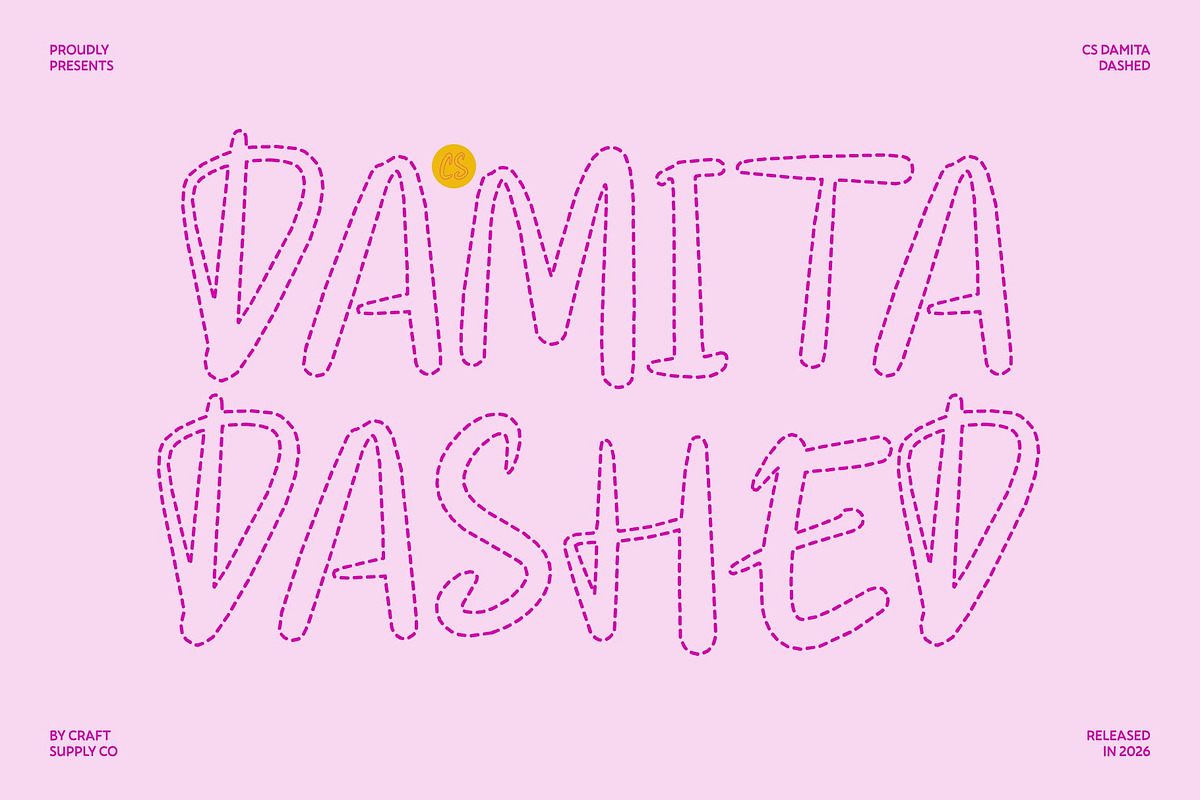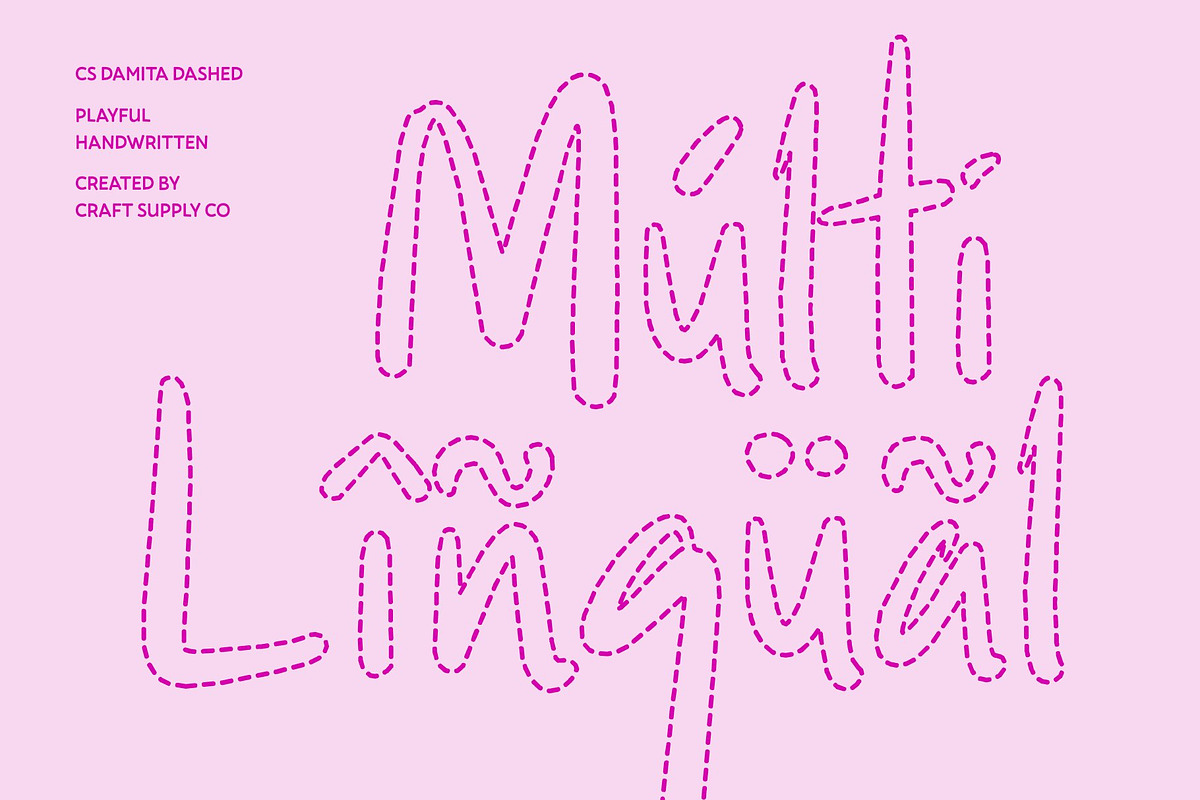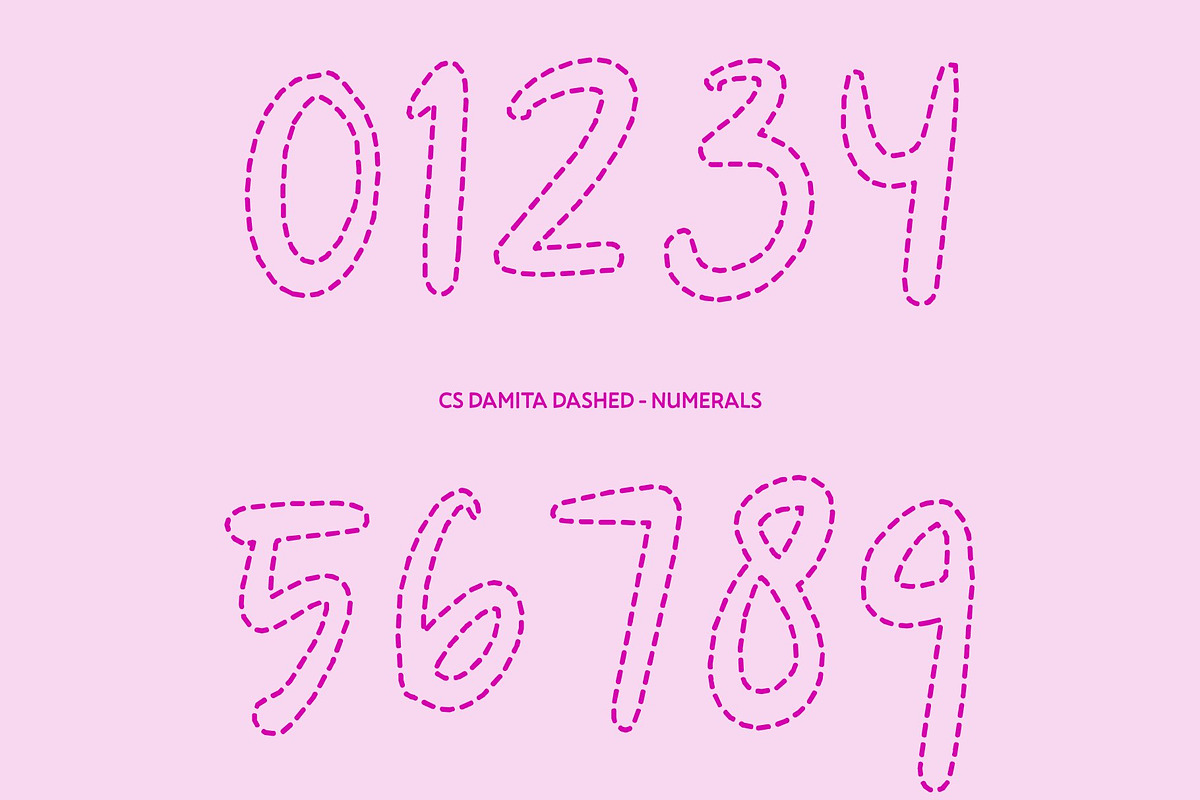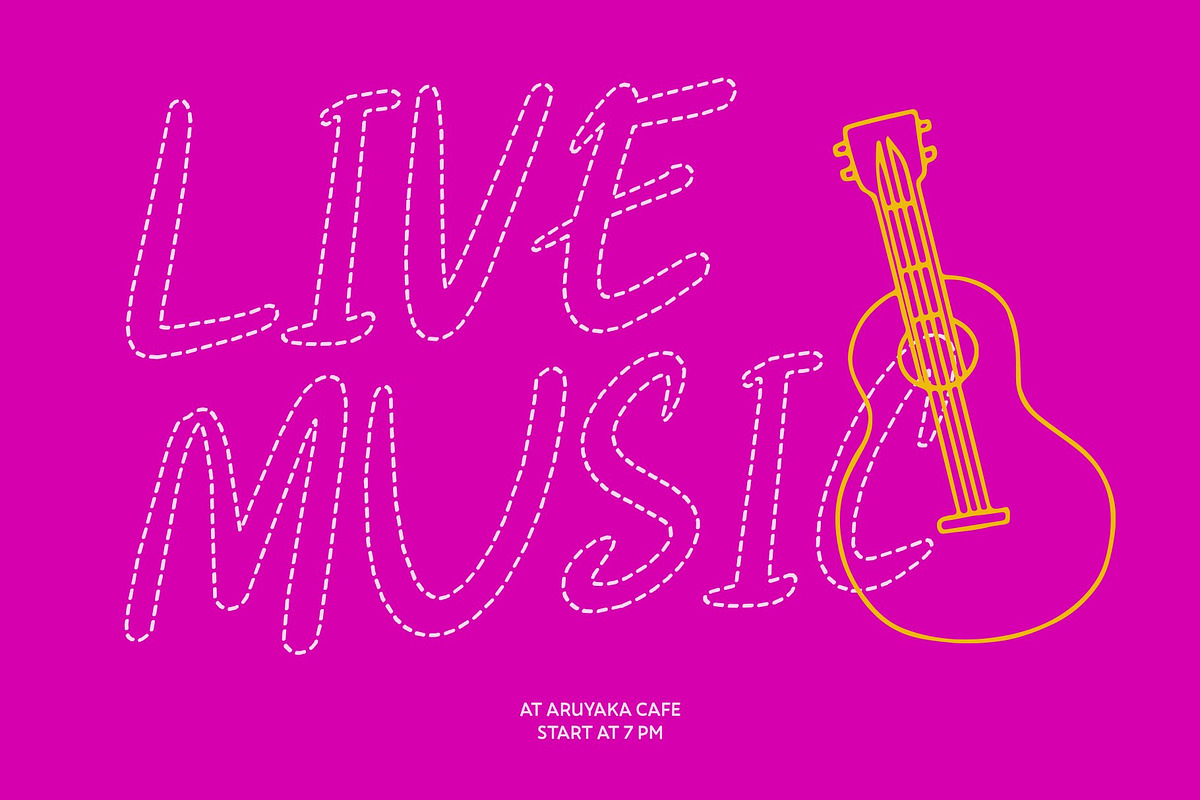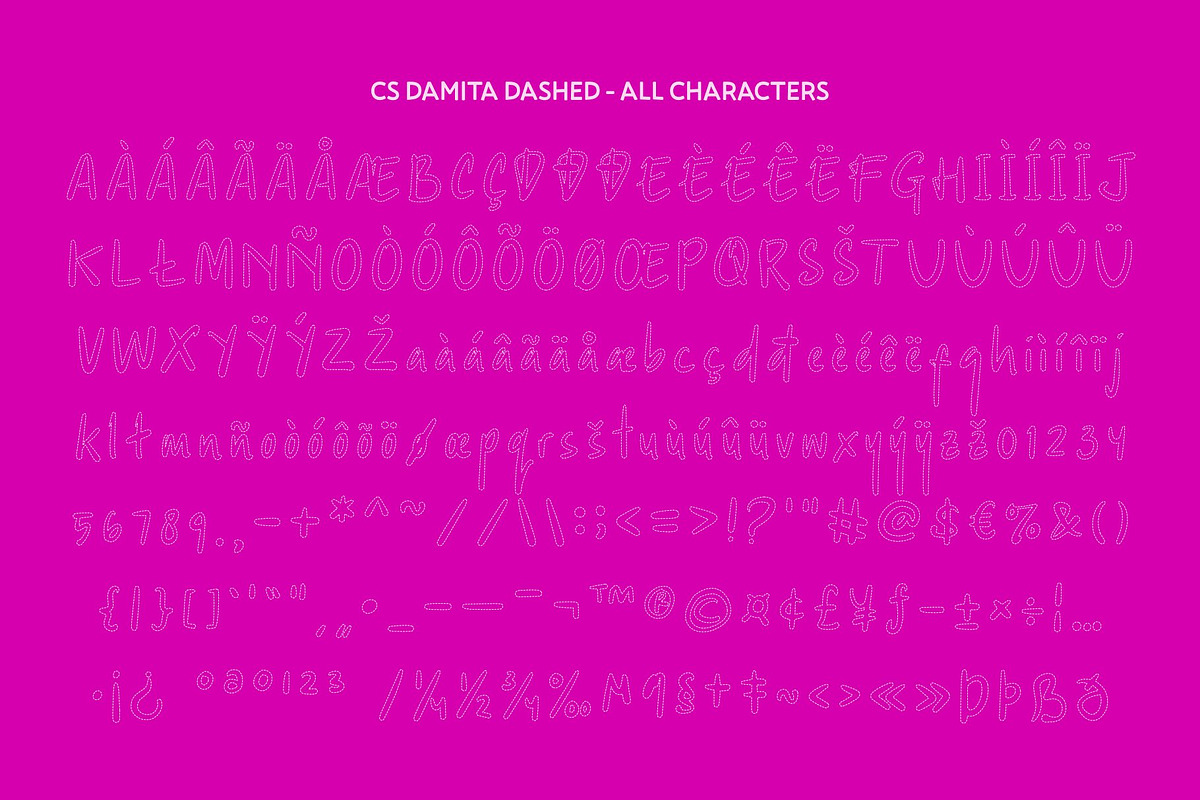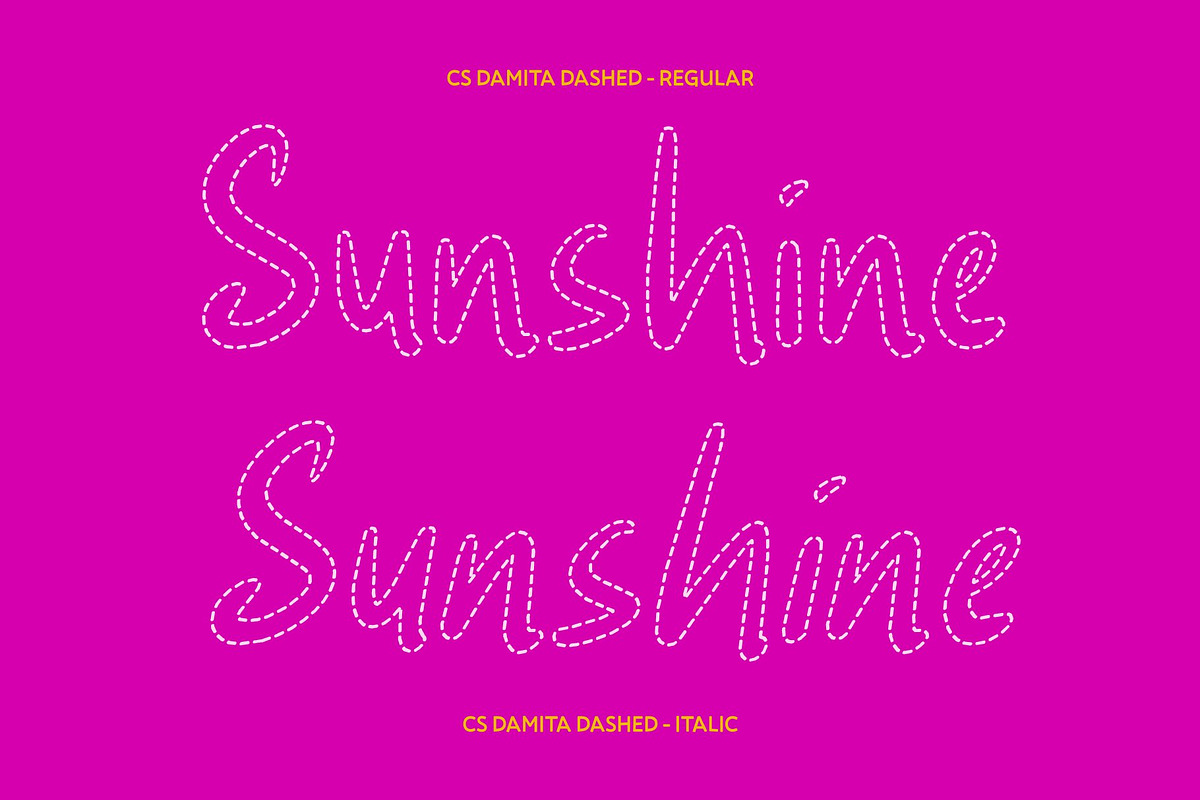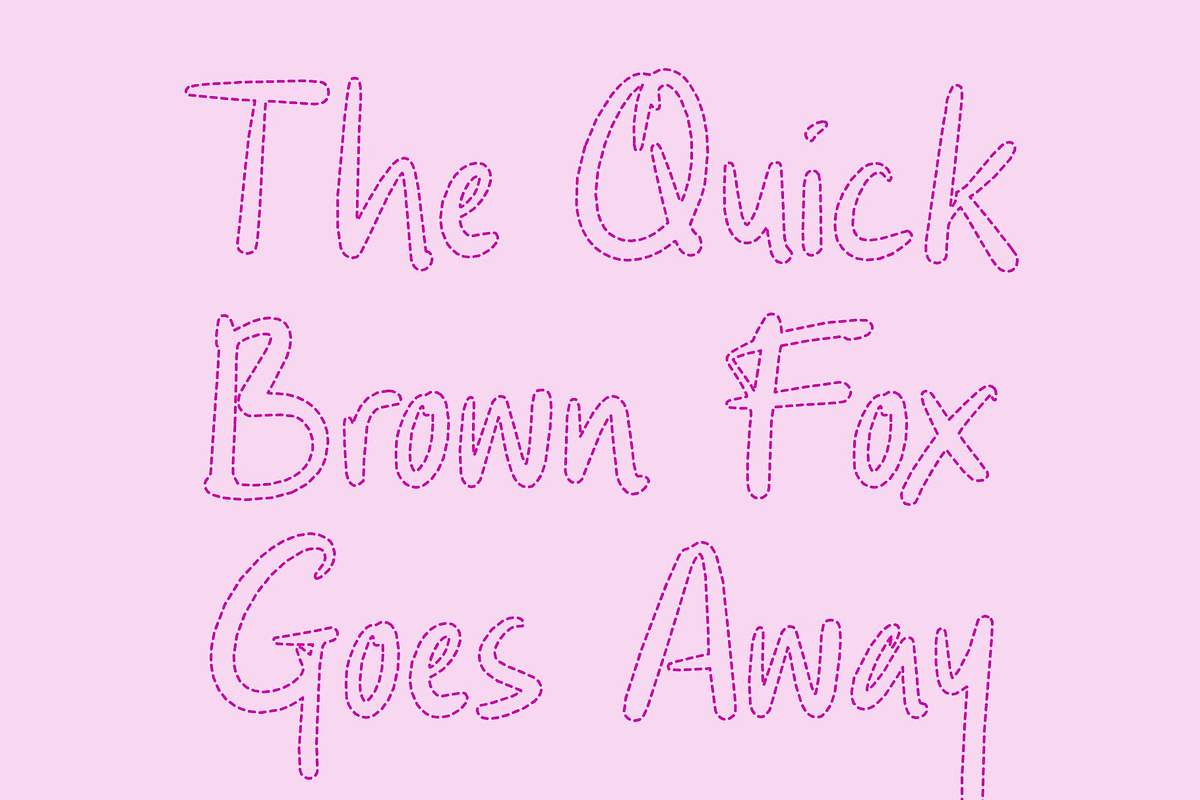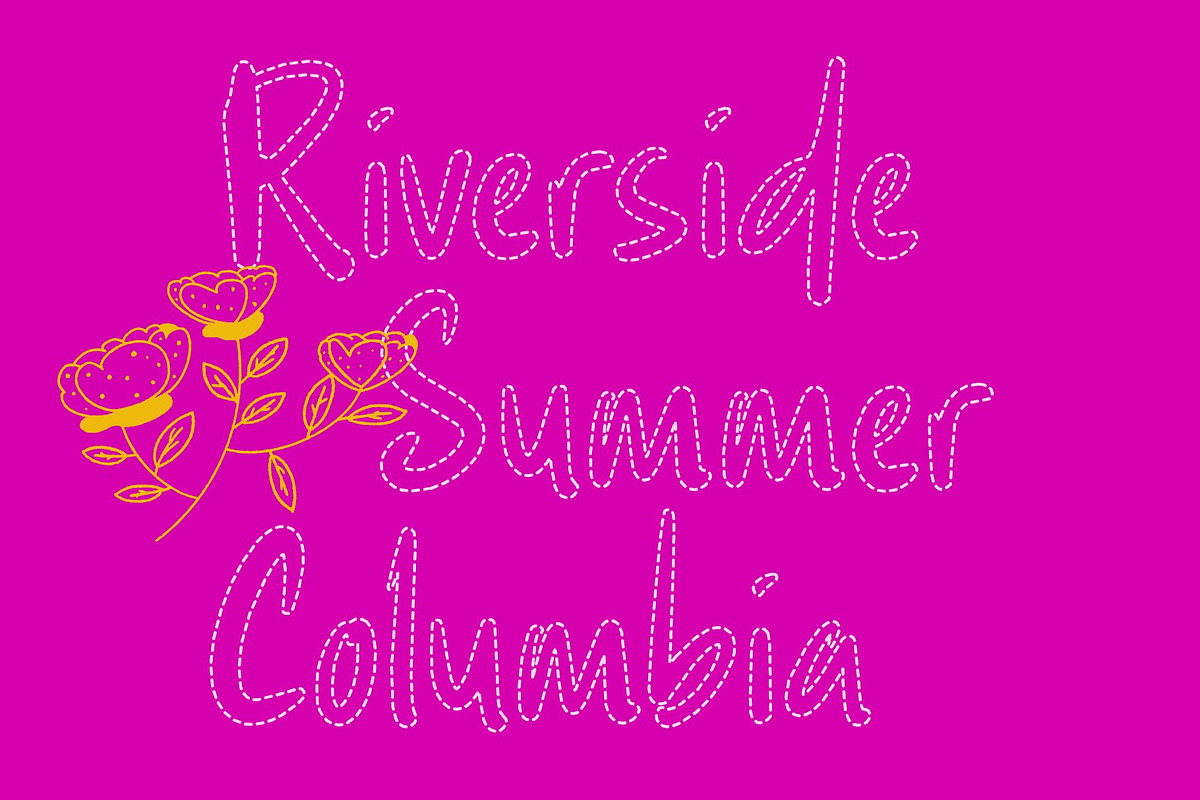
CS Damita Dashed
CS Damita Dashed – Soft Handwritten Display with Warm Authenticity
Handwritten Display Font with Natural Expression This is a handwritten display font designed to capture the soft, expressive beauty of real pen strokes. Its gentle curves and organic movement create a soothing handwritten feel that looks sincere and inviting. Each letter carries natural charm, making it ideal for designers who want to communicate authenticity, and personal connection through typography.
Dashed Pen Strokes with Artistic Warmth The defining characteristic of lies in its dashed construction. Rather than solid, continuous lines, the letterforms are formed with delicate, broken strokes short segments that create a light and airy rhythm. This dashed style enhances the impression of natural pen movement, as if the pen softly lifted and touched the page.
Friendly Curves with Relaxed Personality The softness of its curves combined with the segmented strokes gives the font a friendly and approachable presence. The dashed details introduce subtle texture and movement without overwhelming readability. This balance creates a display font that feels expressive yet calm, decorative yet effortless perfect for emotionally driven and artistic compositions.
Perfect for Personal Branding, Quotes, and Casual Invitations This is ideal for personal branding, inspirational quotes, casual invitations, greeting cards, social media graphics, journaling designs, and lifestyle packaging. Its warm handwritten style paired with the dashed effect transforms simple text into a heartfelt visual statement, making every project feel intimate, creative, and genuinely human.